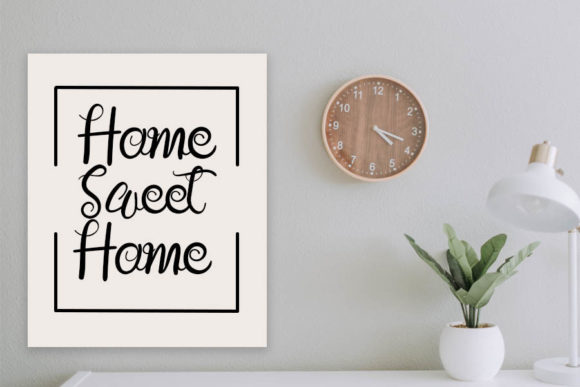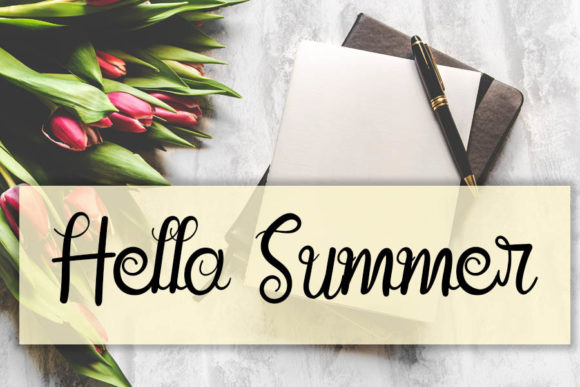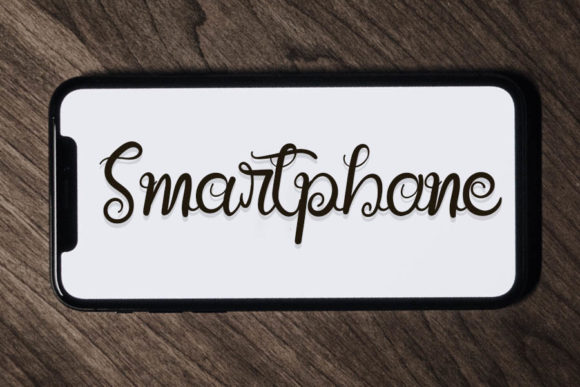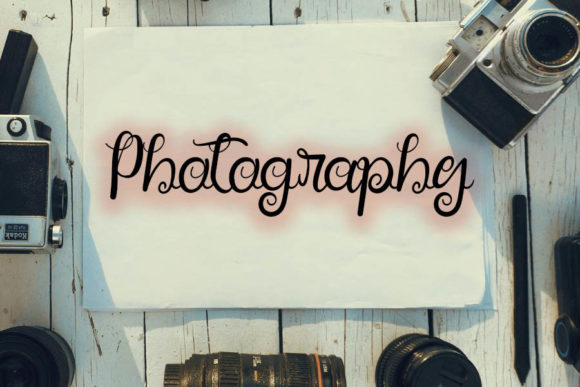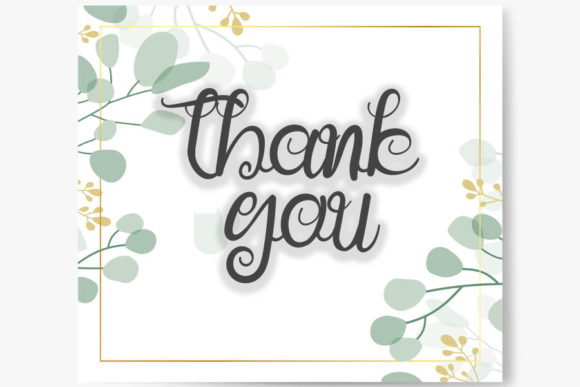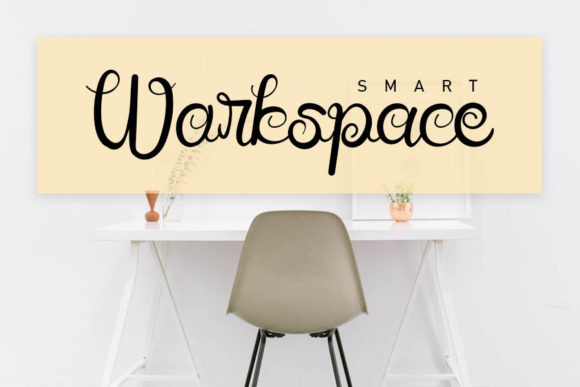
Lovely Signature Font
About Lovely Signature Font
Lovely Signature is a chic and highly detailed script font. Fall for its ravishing style and use it to create gorgeous wedding invitations, beautiful stationary art, eye-catching social media posts, and much more!